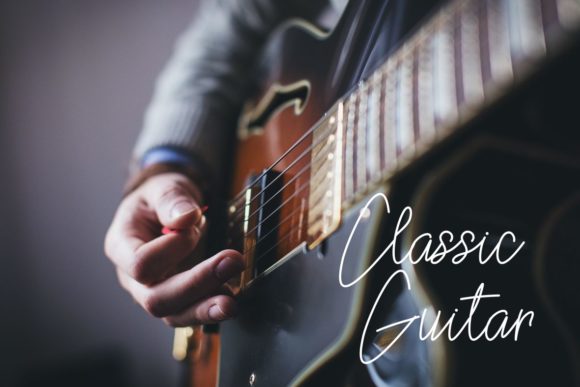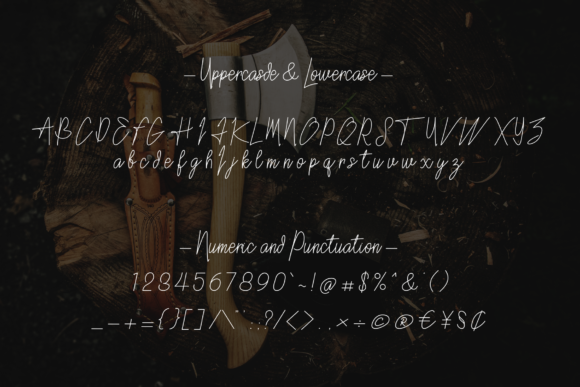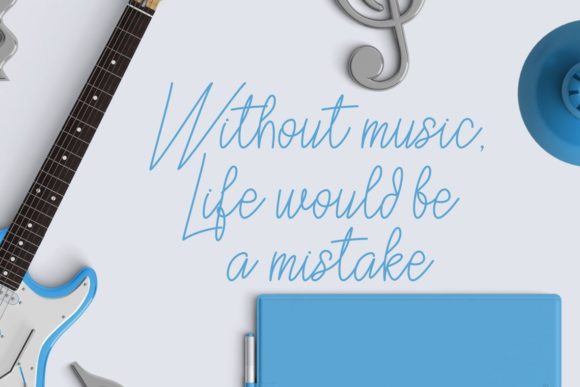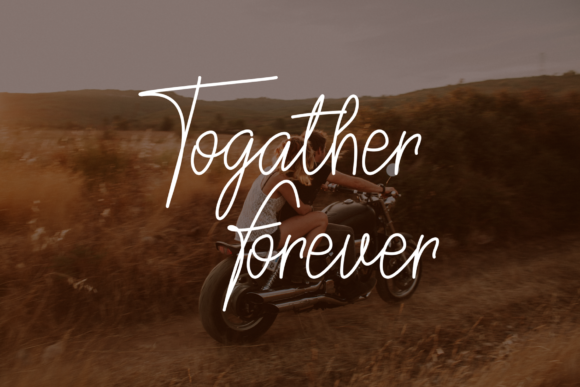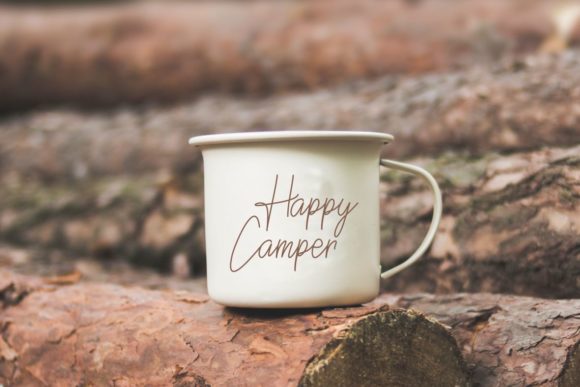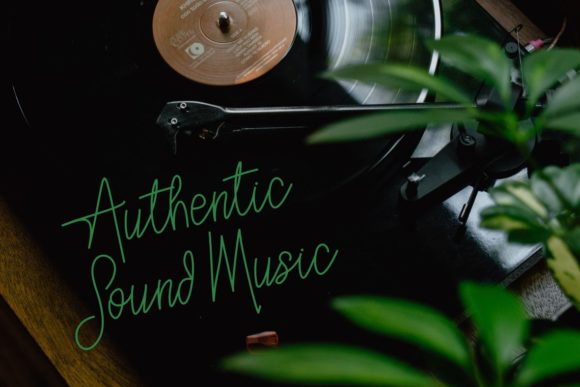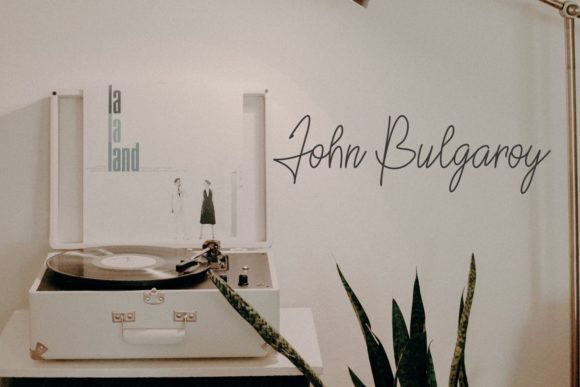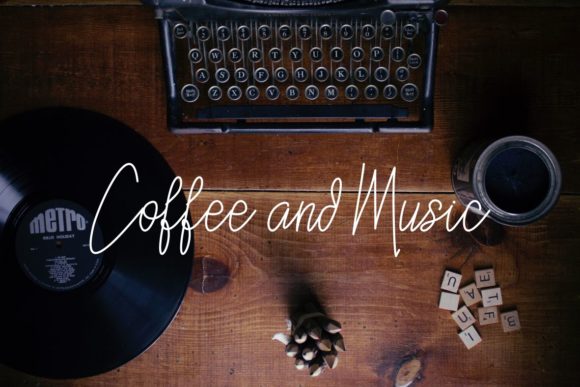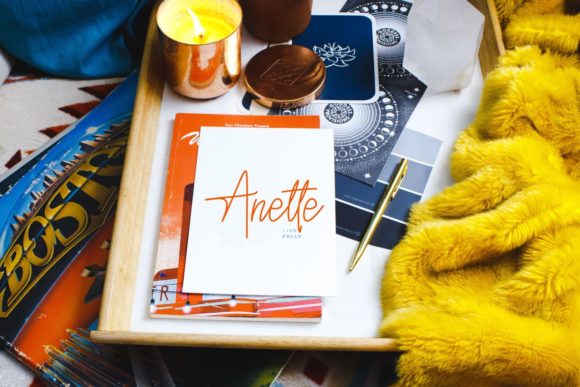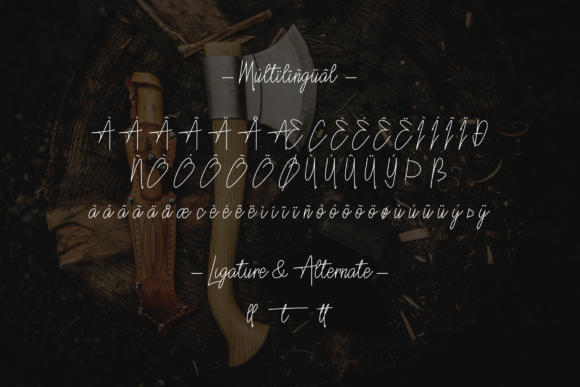
Armstrong Collins Font
About Armstrong Collins Font
Armstrong Collins is a captivating and refined handwritten font that exudes elegance and grace. Its flowing strokes and delicate letterforms make it a perfect choice for a wide array of design projects, adding a touch of sophistication and charm to every creation.
When it comes to wedding invitations, Armstrong Collins sets the stage for a truly memorable and romantic celebration. Its graceful lines and artistic flair create an intimate and personal feel, capturing the essence of love and joy that surrounds the special day. The font’s timeless elegance ensures that wedding invitations become cherished keepsakes for both couples and guests alike.
Thank you cards gain an extra touch of sincerity and warmth with Armstrong Collins. The delicate lettering enhances the heartfelt expressions of gratitude, making recipients feel truly appreciated. Each word penned in this font feels like a thoughtful and genuine gesture, leaving a lasting impression of kindness.
Quotes and greeting cards come to life with Armstrong Collins. Its flowing and distinct style adds a unique character to the messages, enhancing the impact of inspirational words and heartfelt sentiments. Whether it’s a motivational quote or a heartfelt message, Armstrong Collins elevates the emotional connection between sender and receiver.
Logos that bear the mark of Armstrong Collins exude a sense of professionalism and sophistication. Its handwritten touch adds a personal and approachable feel to branding, making businesses stand out with a touch of elegance. The font leaves a lasting impression on clients and customers, fostering a sense of trust and authenticity.
On business cards, Armstrong Collins offers a perfect blend of refinement and simplicity. The font’s flowing strokes and delicate curves create an eye-catching design that leaves a memorable imprint. The handwritten touch sets the tone for lasting connections and business relationships.
Beyond the mentioned designs, Armstrong Collins remains a versatile and adaptable font. Its timeless charm and graceful style make it a wonderful choice for a variety of creative endeavors, from social media graphics to art prints and beyond. The font effortlessly infuses any project with a sense of beauty and sophistication.
In conclusion, Armstrong Collins is a flowing and delicate handwritten font that enchants with its elegance and versatility. It brings a touch of refinement to wedding invitations, thank you cards, quotes, greeting cards, logos, business cards, and various other designs. With its captivating charm, Armstrong Collins elevates each project to new heights, leaving a lasting impression of grace and sophistication.